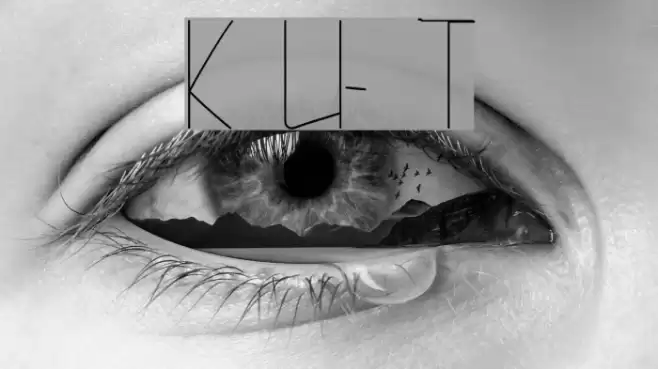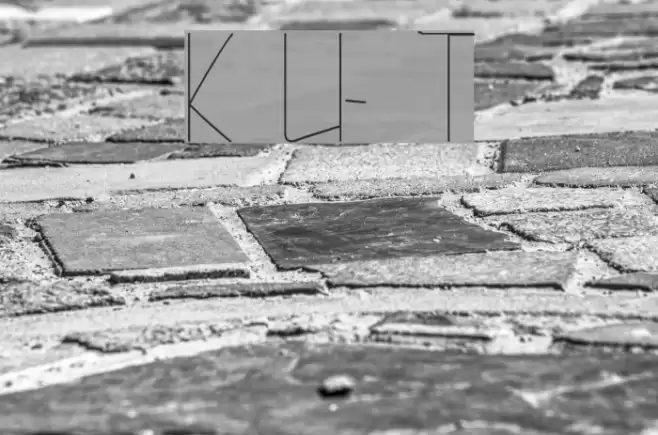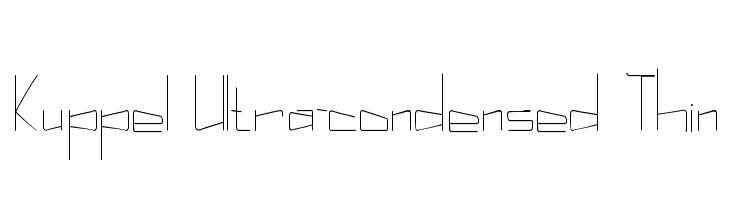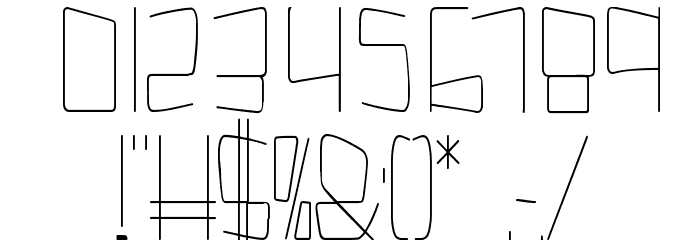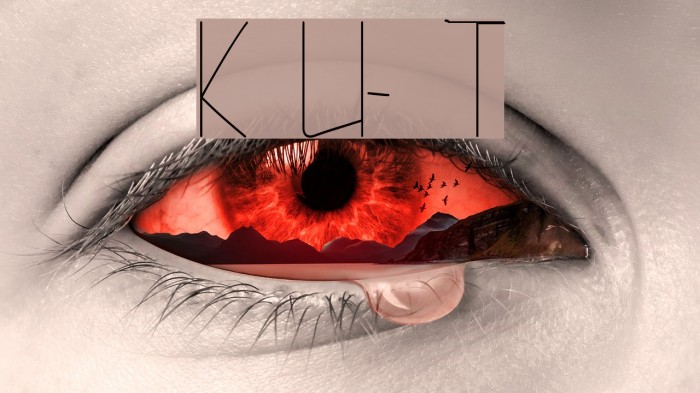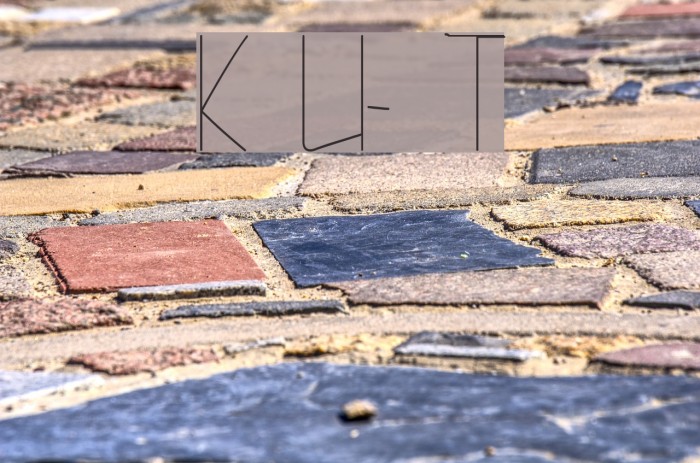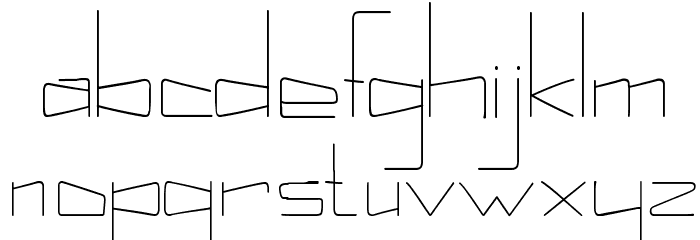
Kuppel Ultra-condensed Thin Font
Kuppel Ultra-condensed Thin Description
This font features an ultra-condensed and thin design, characterized by its minimalistic and geometric letterforms. The lines are straight and angular, giving it a modern and futuristic appearance. The uppercase and lowercase letters maintain a consistent height, contributing to its uniform look. The numerals and special characters follow the same design principles, ensuring coherence throughout the font. Its thin strokes and condensed width make it ideal for projects that require a sleek and space-efficient typeface.
A modern, ultra-condensed, and thin geometric font from Uncategorized fonts.
- Proposed Projects: Ideal for modern branding, tech-related designs, minimalist posters, and futuristic interfaces.
- Character Spacing: Tight